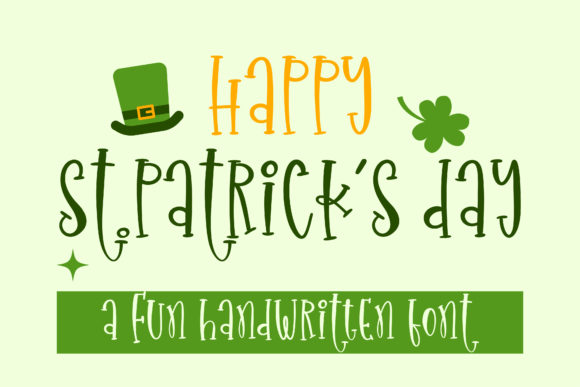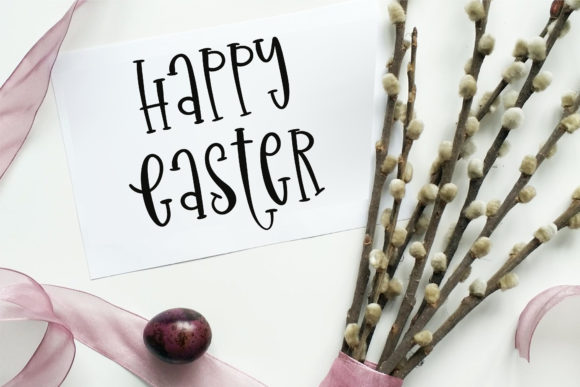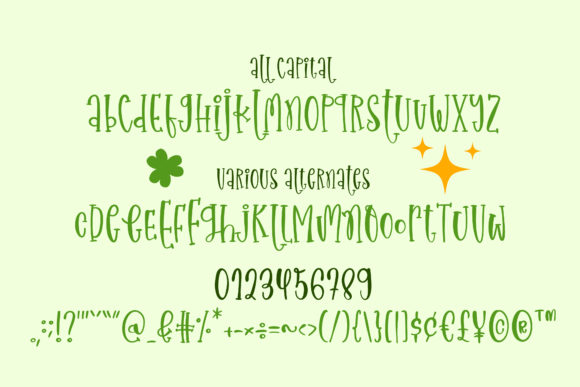
About Happy St.Patrick’s Day Font
“Happy St. Patrick’s Day” is a unique and interesting script font that captures the spirit of the holiday. With its playful and quirky style, this font adds a fun and festive touch to your designs.
The distinctive letterforms of “Happy St. Patrick’s Day” make it stand out and grab attention. The loops, curls, and flourishes create a sense of movement and liveliness, perfectly suiting the celebratory theme of St. Patrick’s Day. Whether you’re designing party invitations, event flyers, or social media graphics, this font will bring a cheerful and energetic vibe to your designs.
The versatility of “Happy St. Patrick’s Day” allows it to be used in a wide variety of contexts. Its unique style makes it suitable for both formal and informal projects. From logos and branding to greeting cards and posters, this font adds a touch of character and charm to any design.
One of the advantages of “Happy St. Patrick’s Day” is that it is PUA encoded, which means you can easily access all of the glyphs and swashes. This allows you to add extra flair and creativity to your designs by incorporating alternate characters, ligatures, and decorative elements.
With its whimsical and eye-catching appearance, “Happy St. Patrick’s Day” is sure to make your designs stand out. Whether you’re creating designs for St. Patrick’s Day specifically or looking to add a touch of fun to any project, this font is a great choice.
In summary, “Happy St. Patrick’s Day” is a unique and interesting script font that brings a playful and festive vibe to your designs. Its versatility and PUA encoding make it easy to customize and enhance your designs with additional glyphs and swashes. Whether you’re designing for St. Patrick’s Day or any other occasion, this font will add a touch of character and charm to your creations.